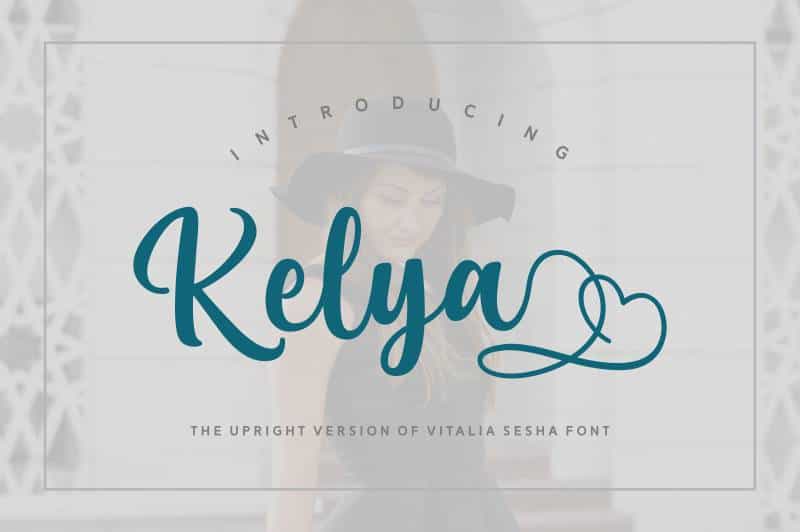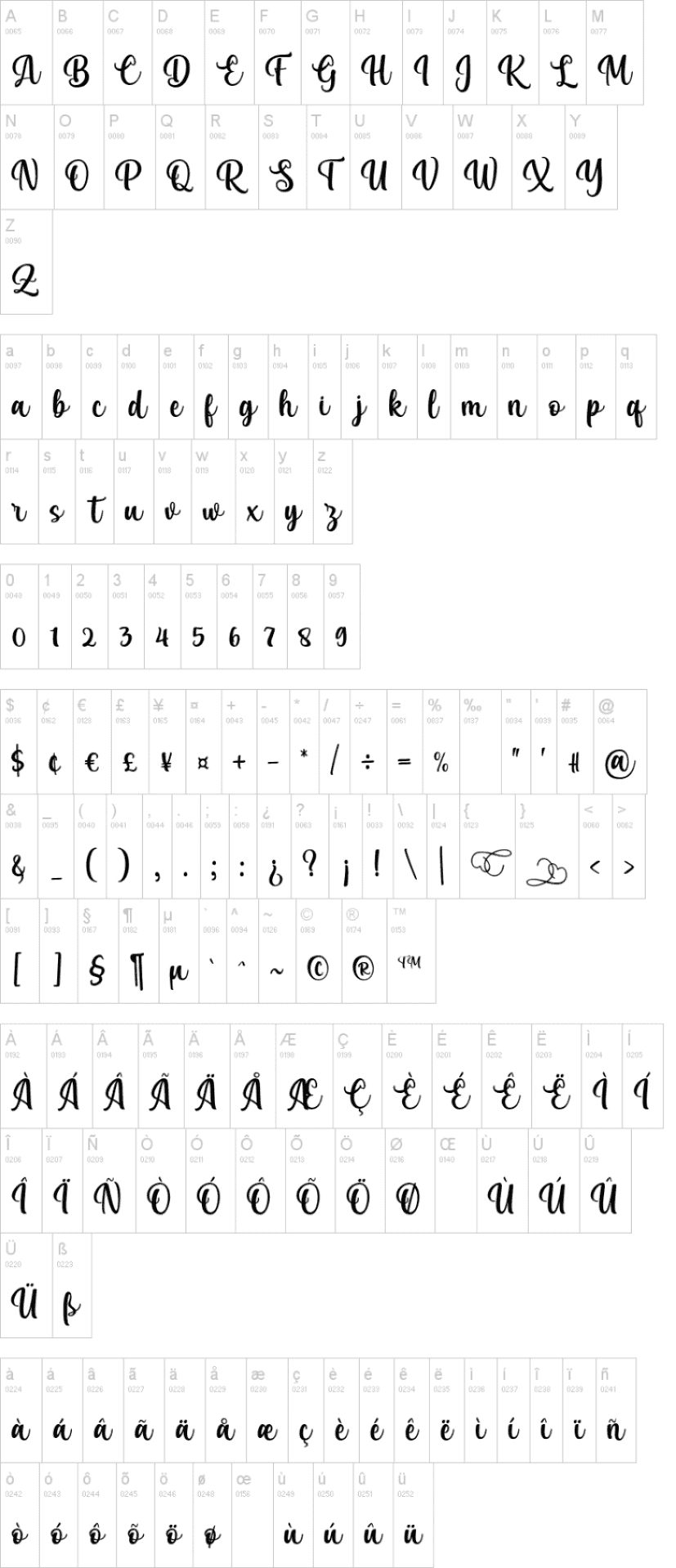
Discover Kelya Font, part of the Calligraphy collection—a versatile and unique font perfect for adding a personal touch to your projects. Download it for free and enjoy crafting designs with style, from invitations to social media posts. This font is available exclusively for personal use, giving you the freedom to create without limits. Unlock your creativity with Kelya Font today!
Kelya font is from 7NTypes, a calligraphy free font. Free version gives all upper and lower case alphabets and few special characters as well.